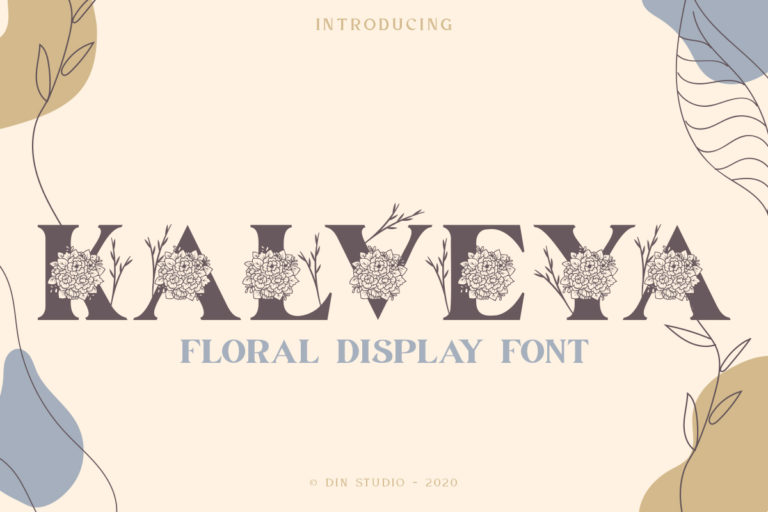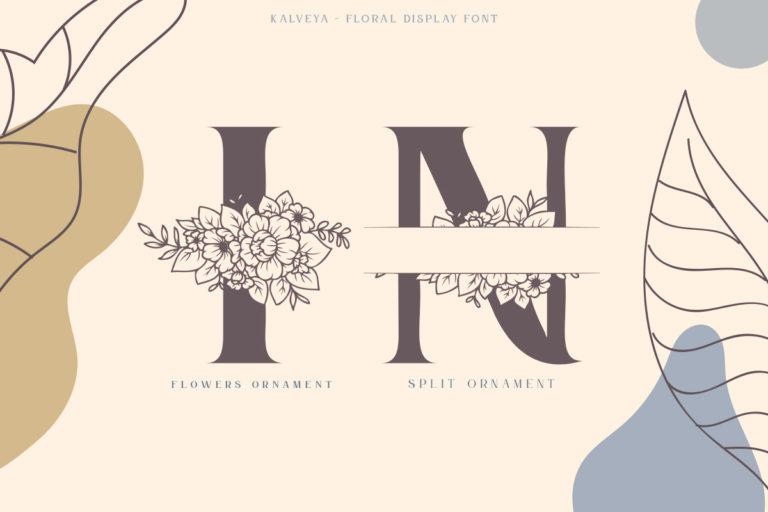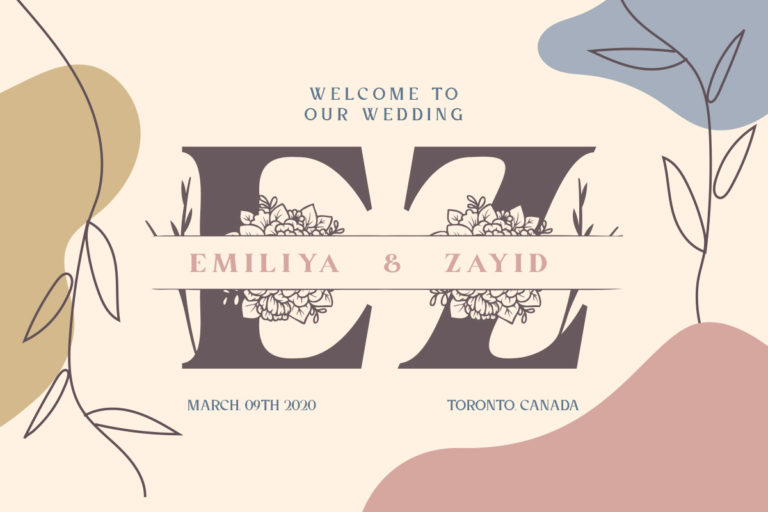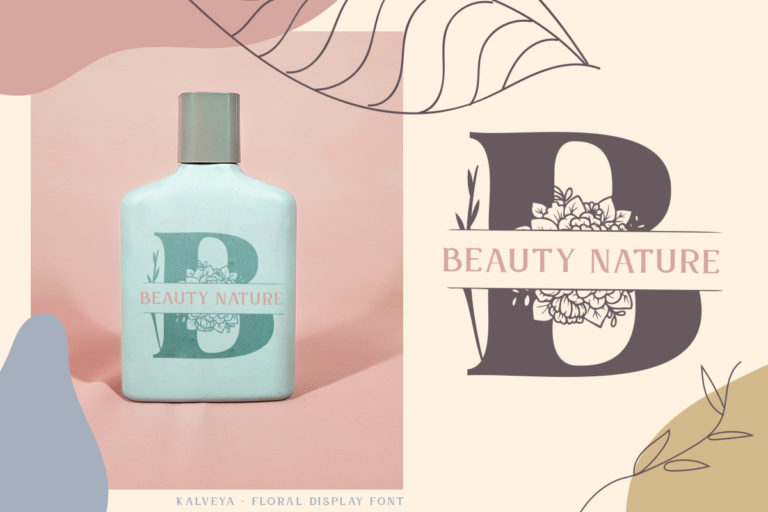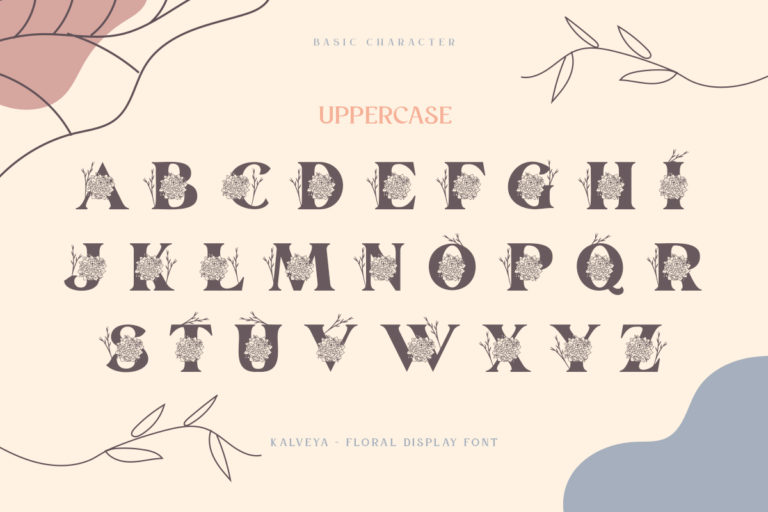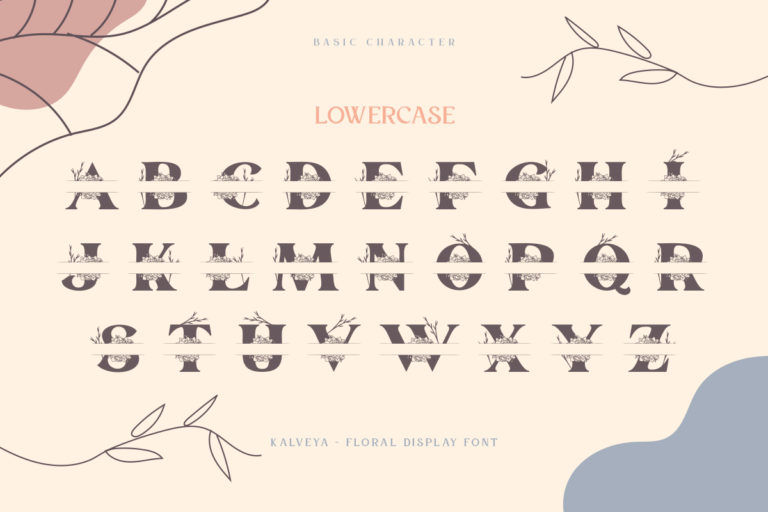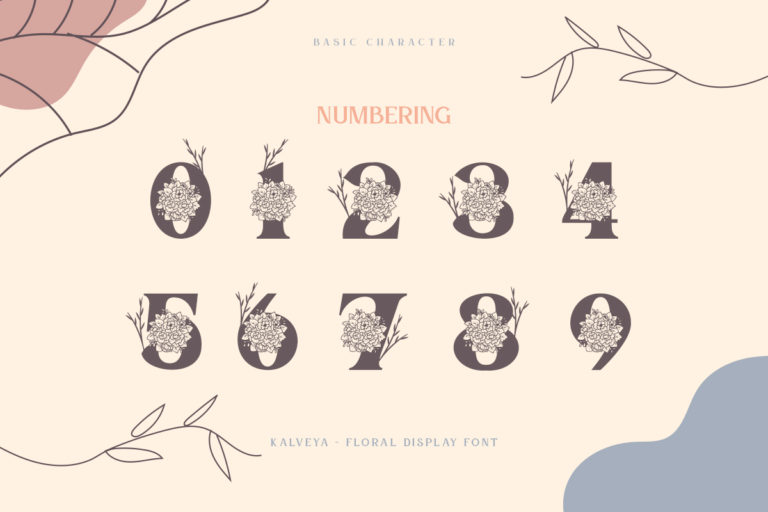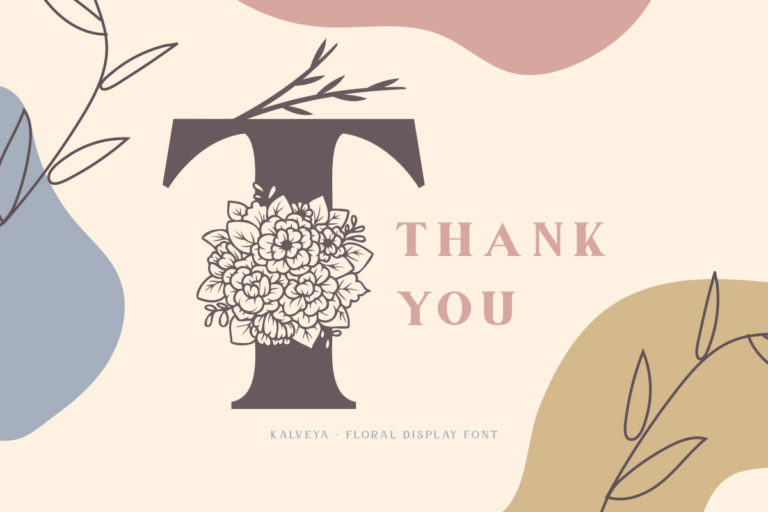
Kalveya – Floral Display Font
Kalveya
Hello, Everyone! Introducing Kalveya – Floral Monogram Font
Kalveya is a beautiful decorative font, featuring elegant flowers. Get inspired by its authentic feel and use it to create gorgeous wedding invitations, lovely stationary art, eye-catching social media posts, and cute greeting cards. See the previews above to get some inspiration on how you can use them. Happy Designing!